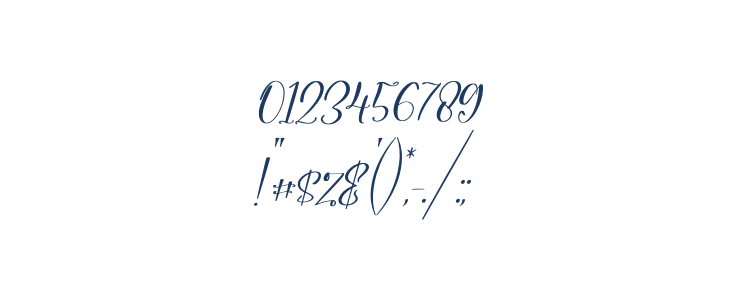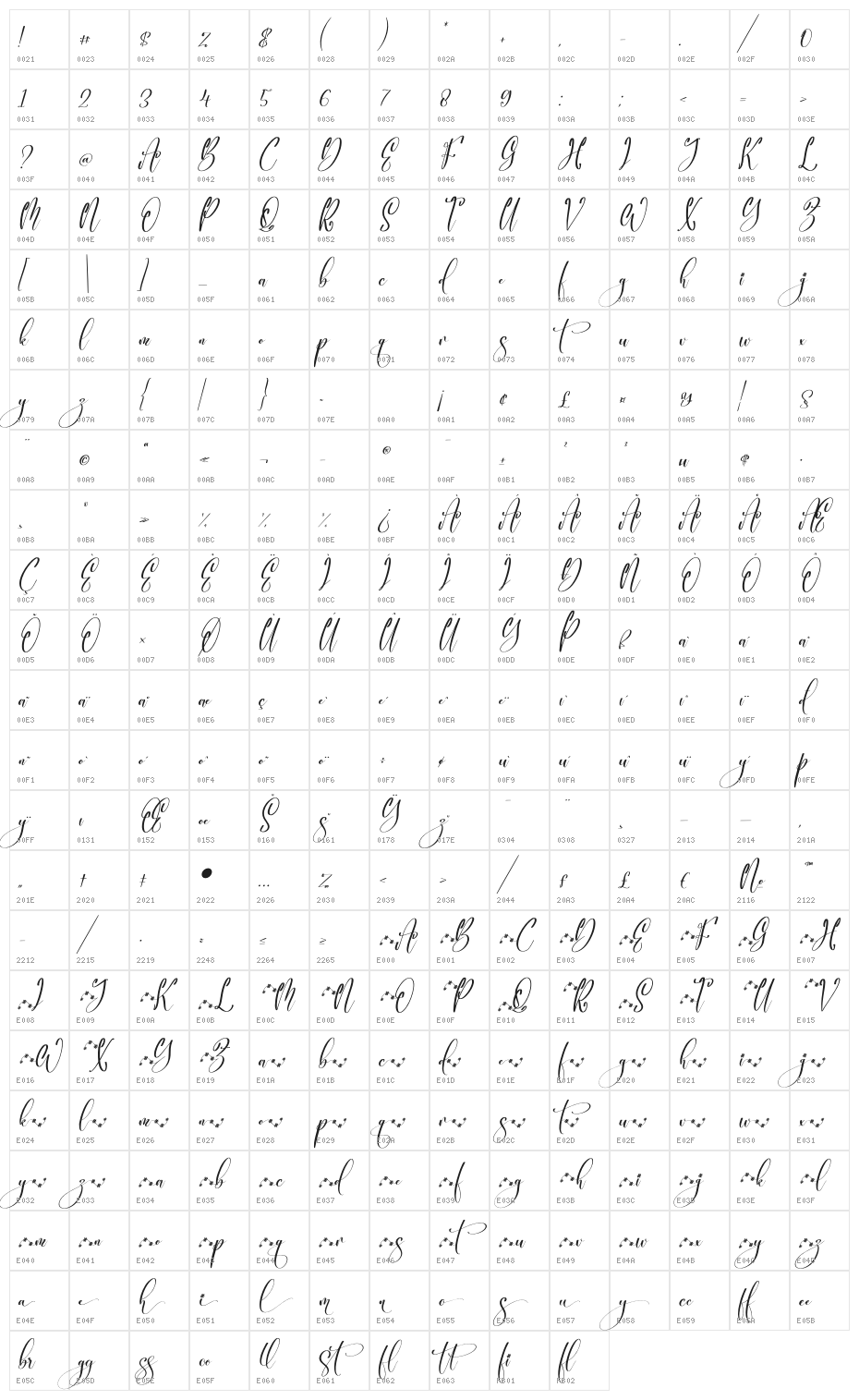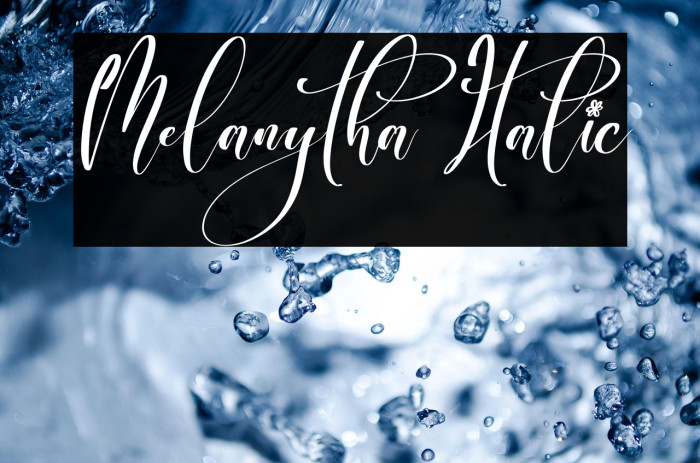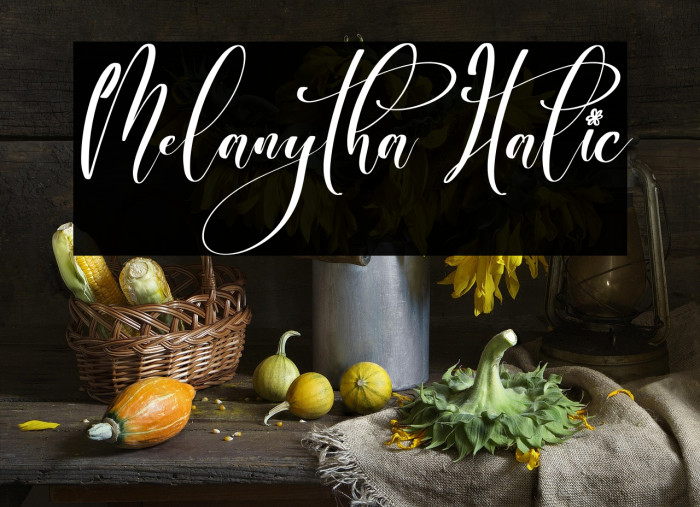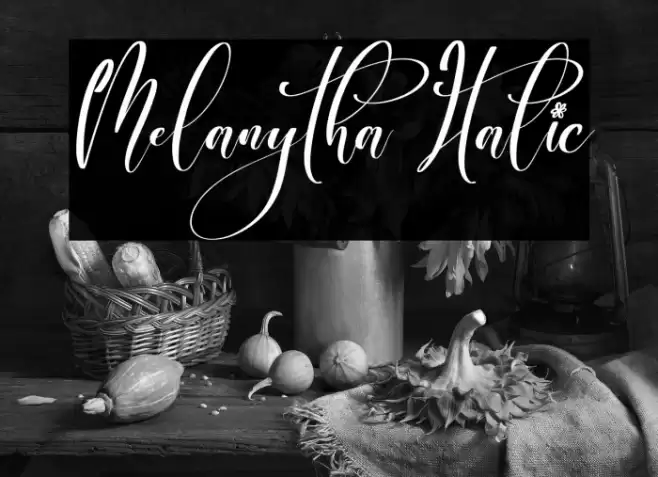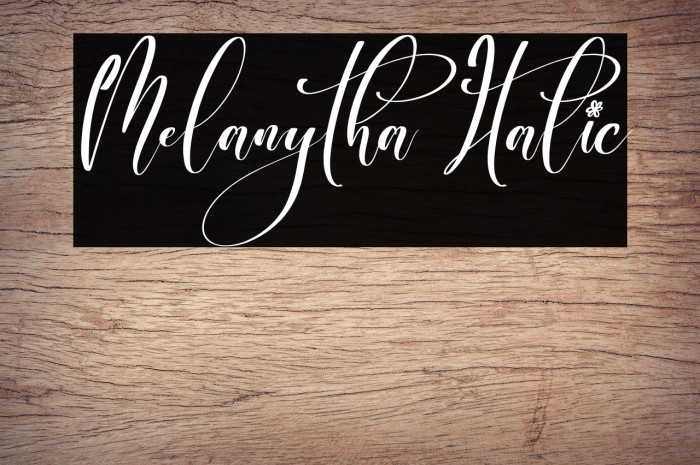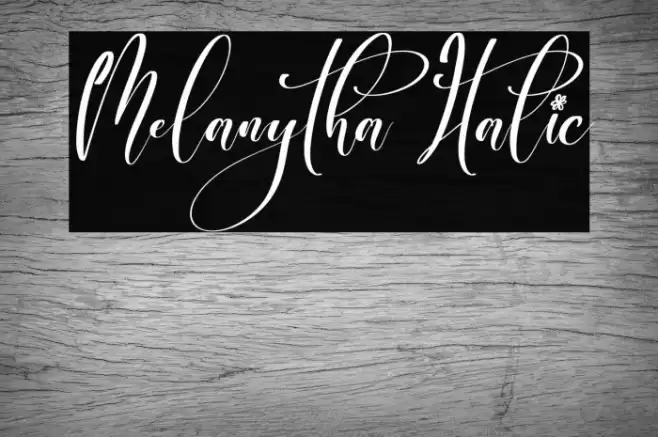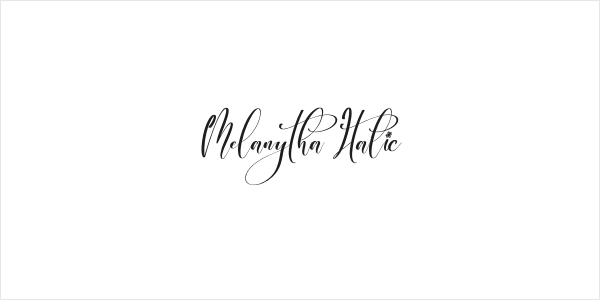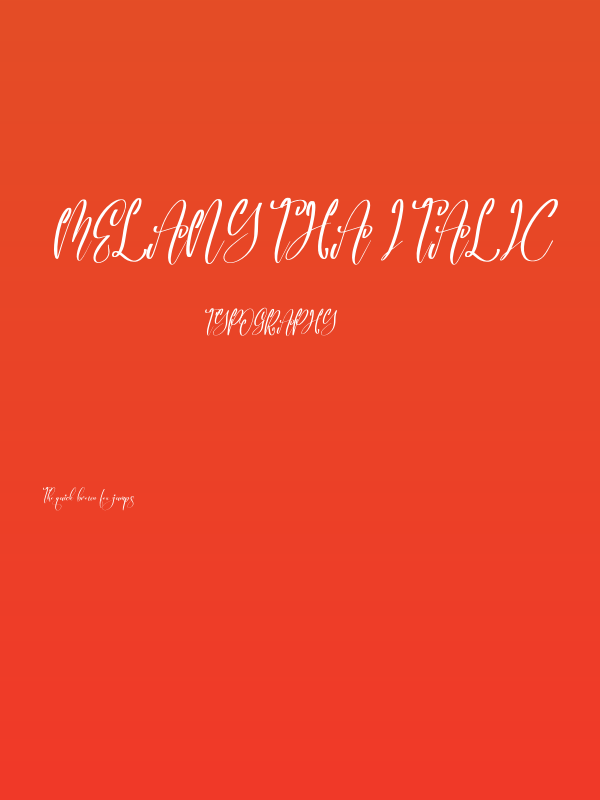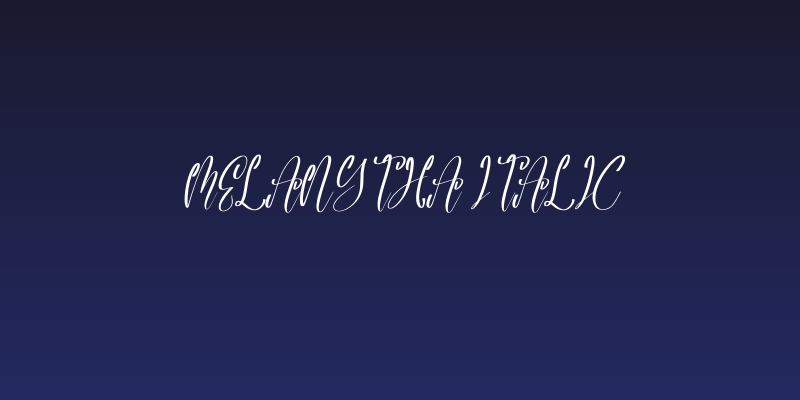
Melanytha Italic Font
Melanytha Italic Description
This elegant script font features flowing, cursive letters with a distinct italic slant, creating a sense of movement and grace. The uppercase letters are characterized by their tall, sweeping ascenders and intricate loops, while the lowercase letters maintain a consistent fluidity with delicate connections. The numerals and special characters complement the overall style with their ornate and decorative elements. The font's high contrast between thick and thin strokes adds to its sophisticated appearance, making it suitable for formal and decorative applications.
| Use Case | Invitations, Branding, Decorative Headlines |
| Proposed Projects | Ideal for wedding invitations, elegant branding, personal stationery, and decorative headlines. |